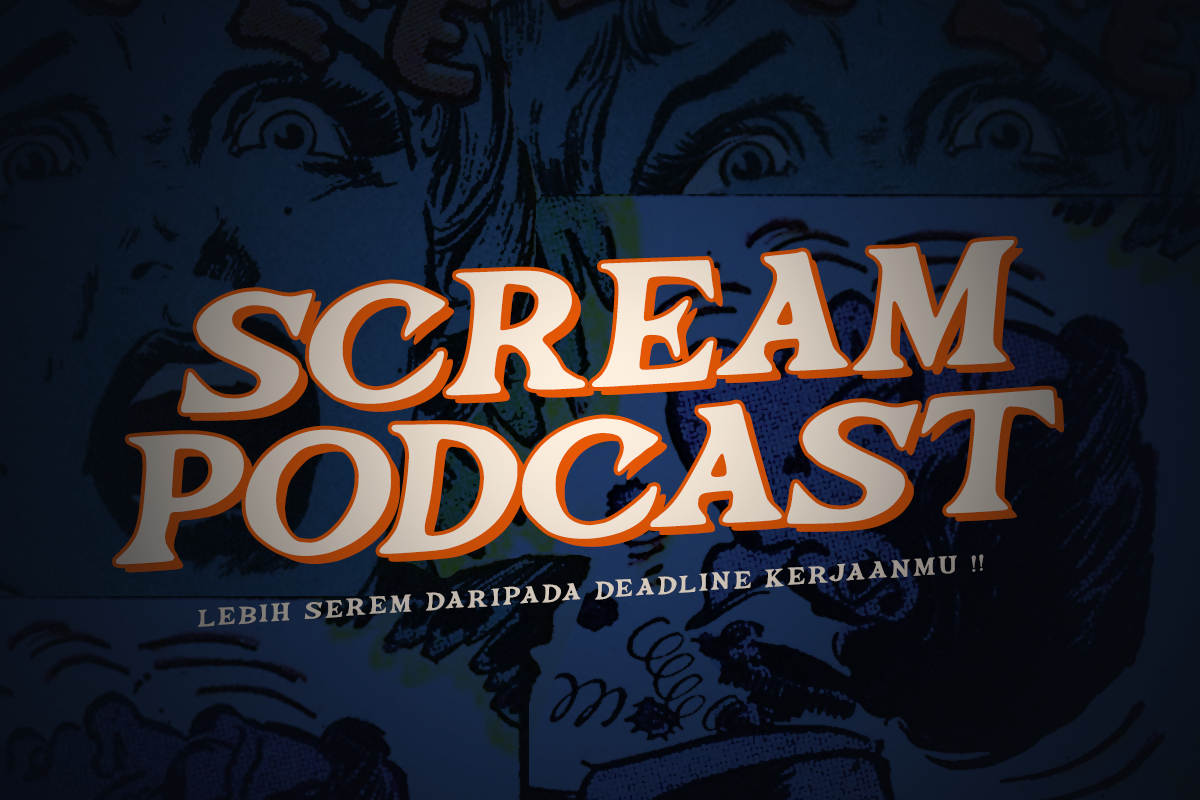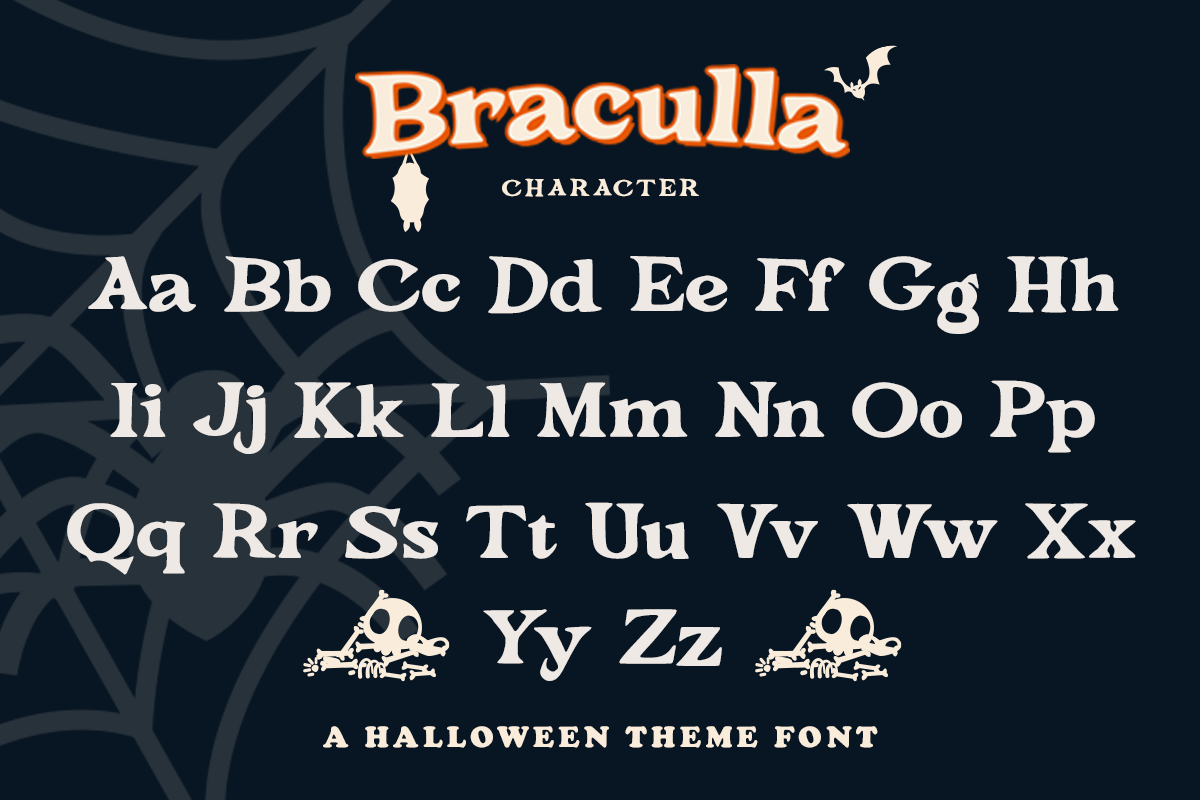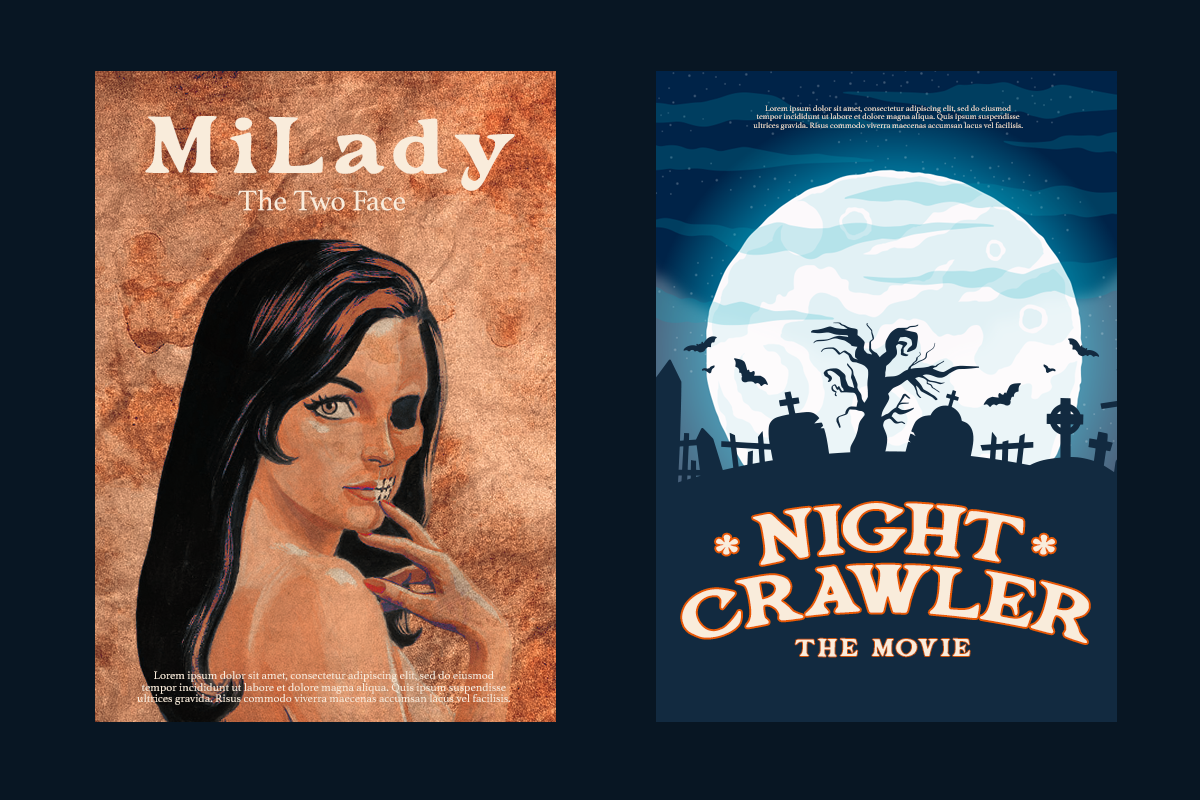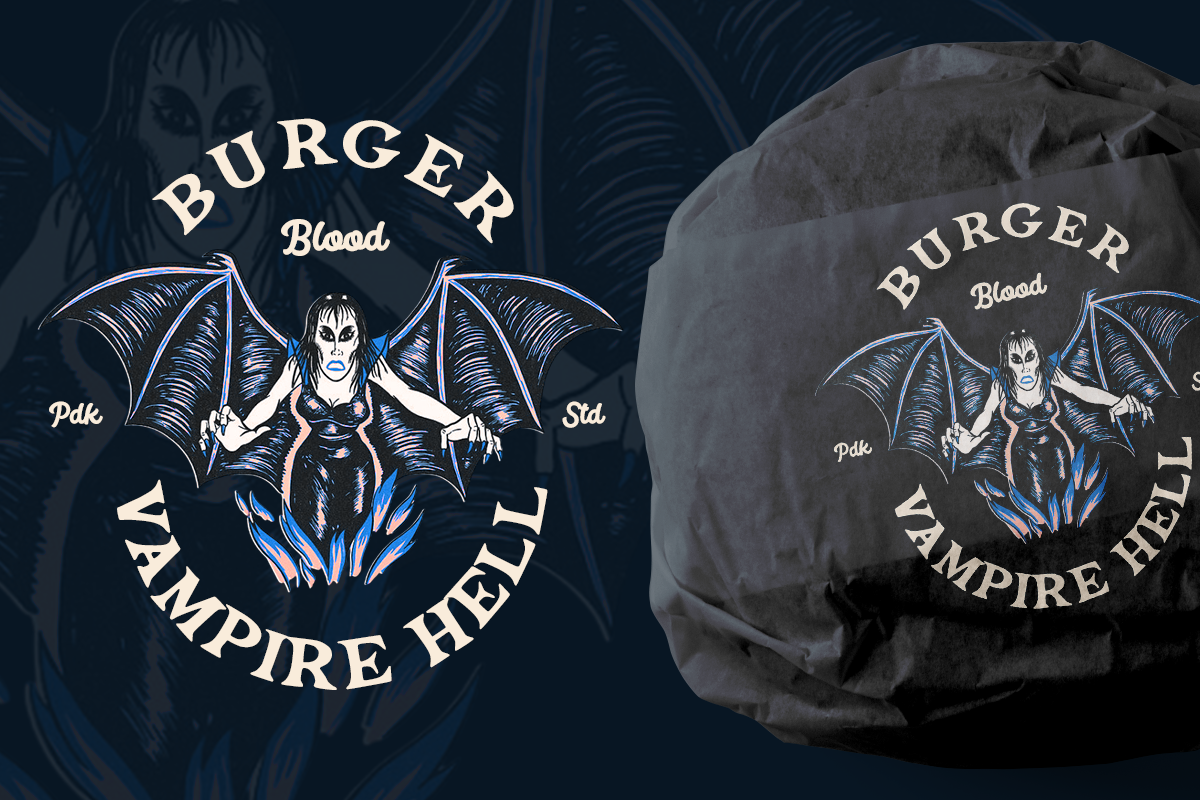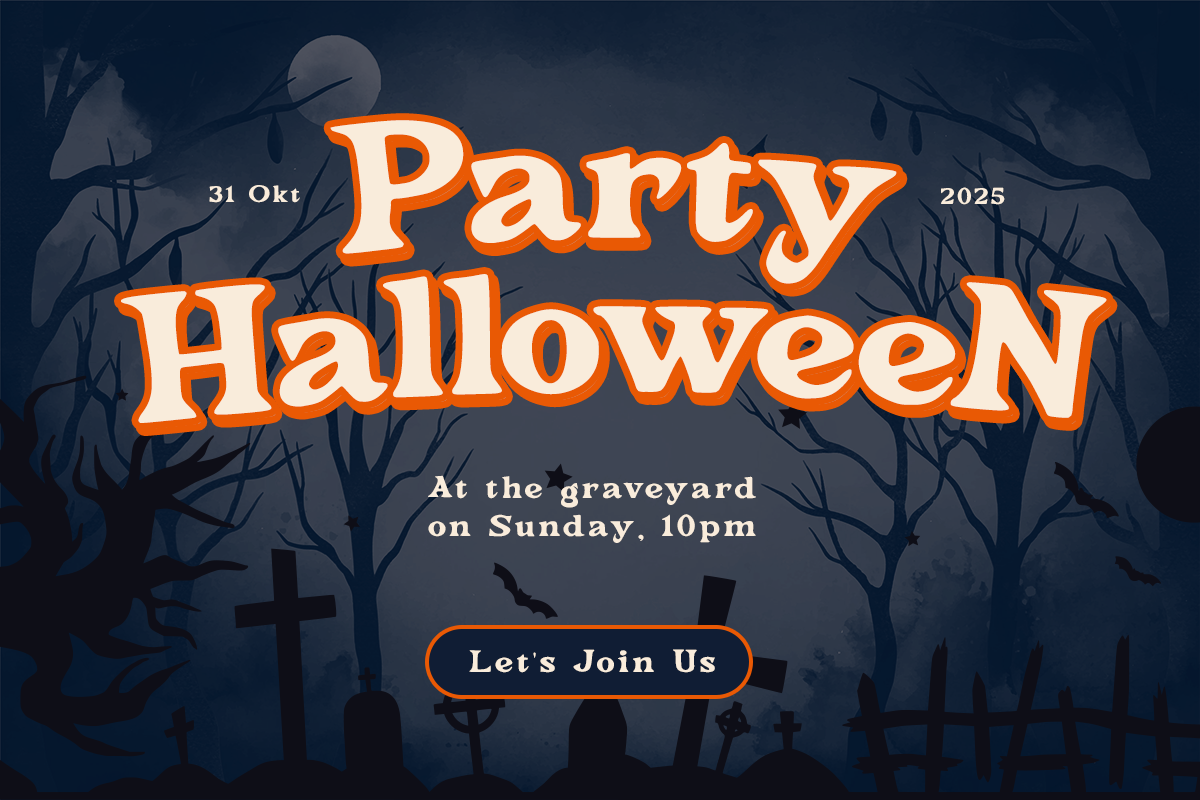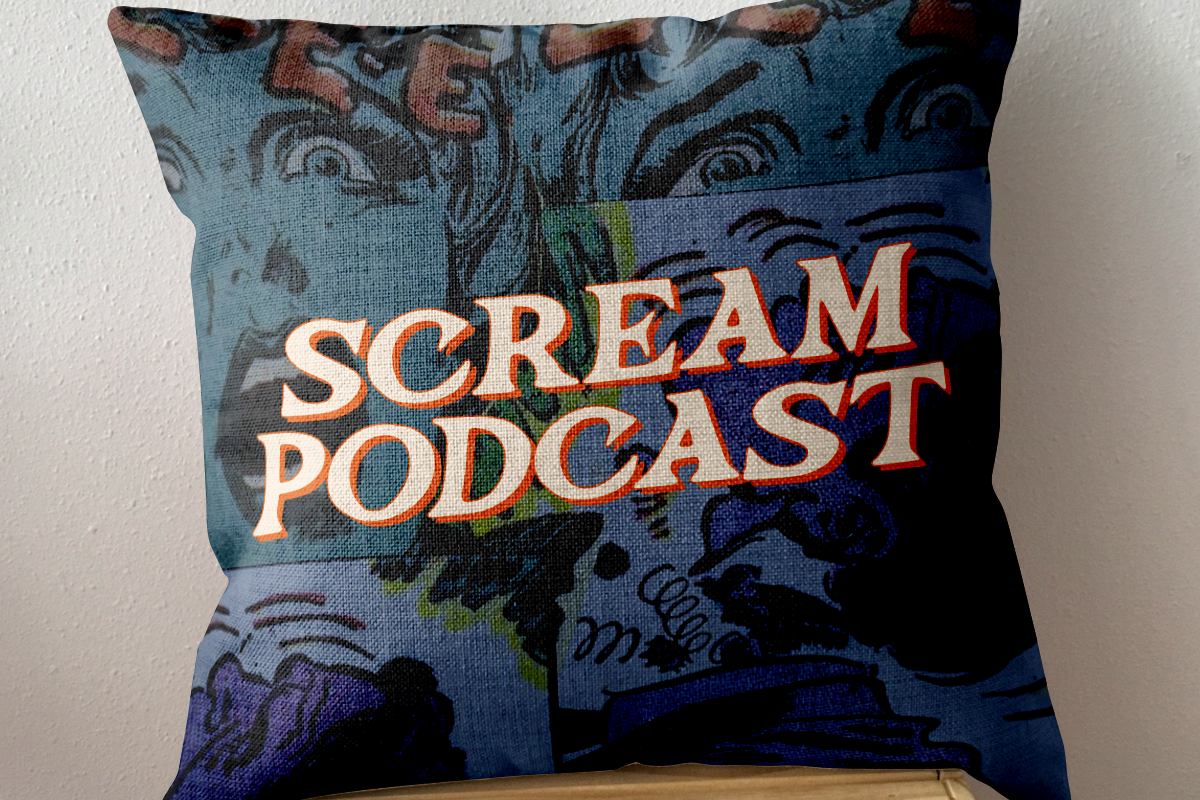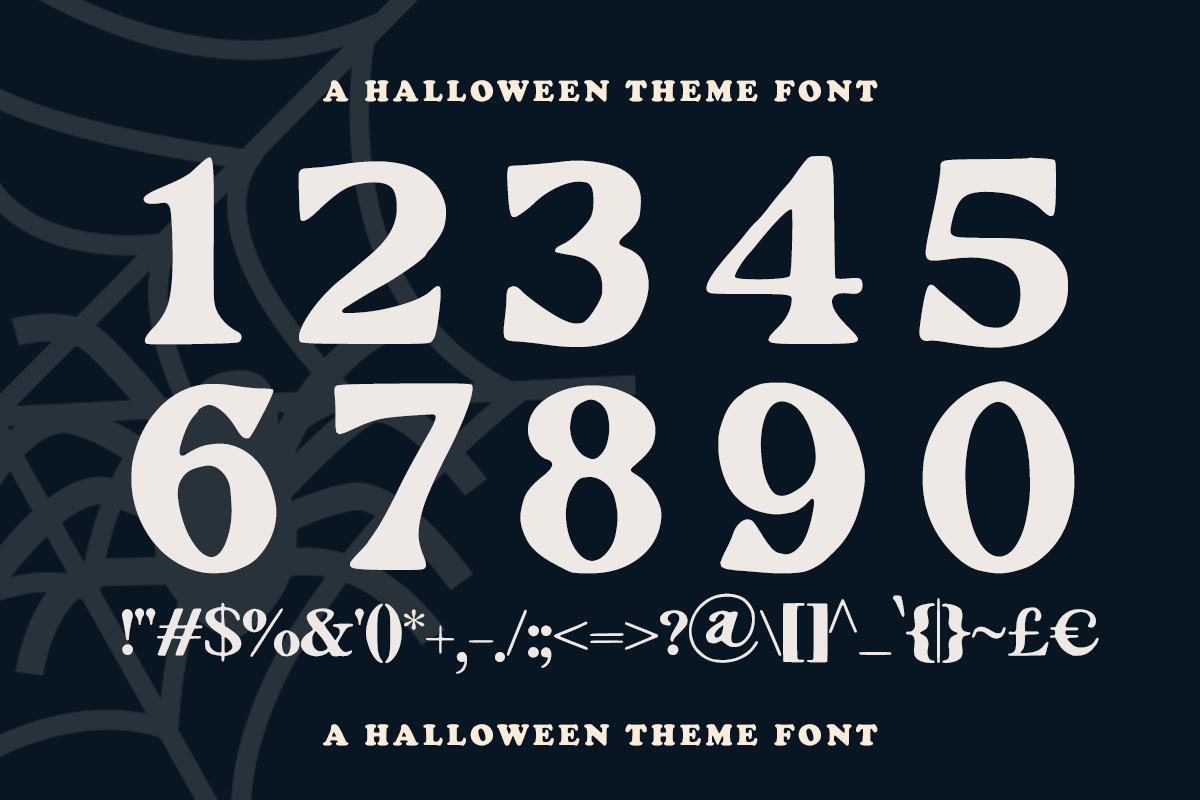
Braculla - A Halloween Serif
Braculla – Gothic Horror Display Font
Braculla is a bold serif font with eerie, vintage gothic touches—perfect for creating a haunting atmosphere. Its sharp, distressed letterforms make it ideal for Halloween serif font themes, spooky typography, creepy lettering, eerie design, and vintage horror style. Whether for haunted posters, horror book covers, or eerie branding, Braculla brings a unique and unforgettable gothic aesthetic.